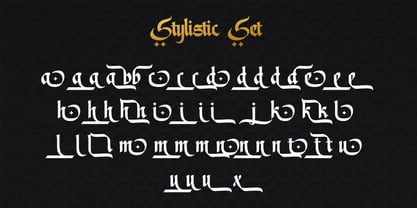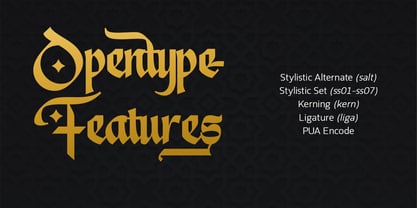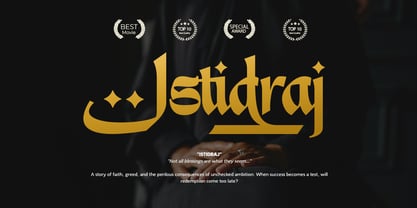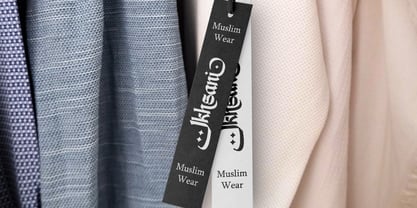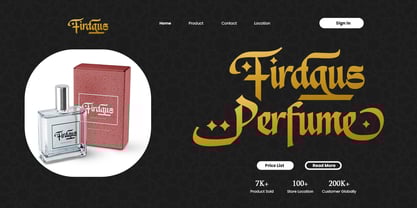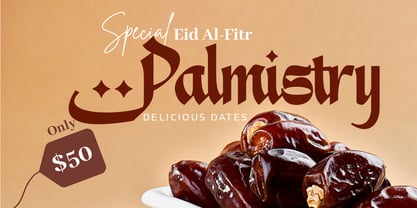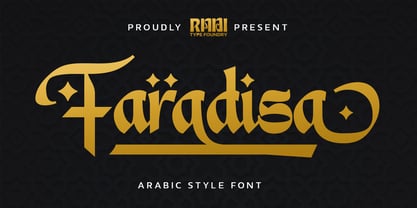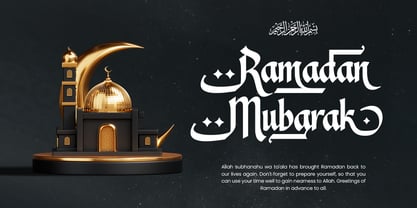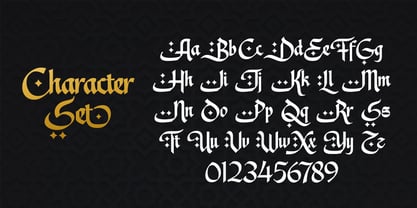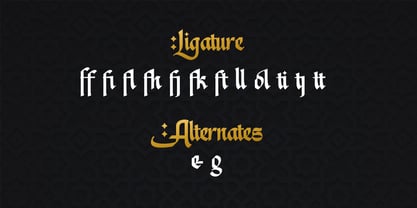
Faradisa
La familia tipográfica Faradisa fue diseñada por Randi Ilhamsyah y publicada por RNDI Type Foundry. Faradisa contiene 1 estilos.
Faradisa – Arabic Style Calligraphy Font
Faradisa is a premium Arabic-style font designed to bring a touch of tradition and elegance to your projects. Inspired by the beauty of Arabic calligraphy, this font blends intricate details with modern versatility, making it perfect for: